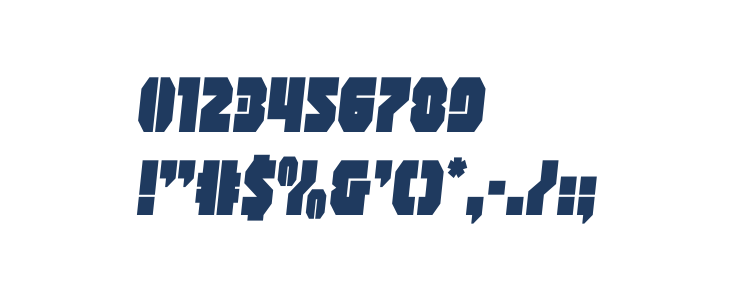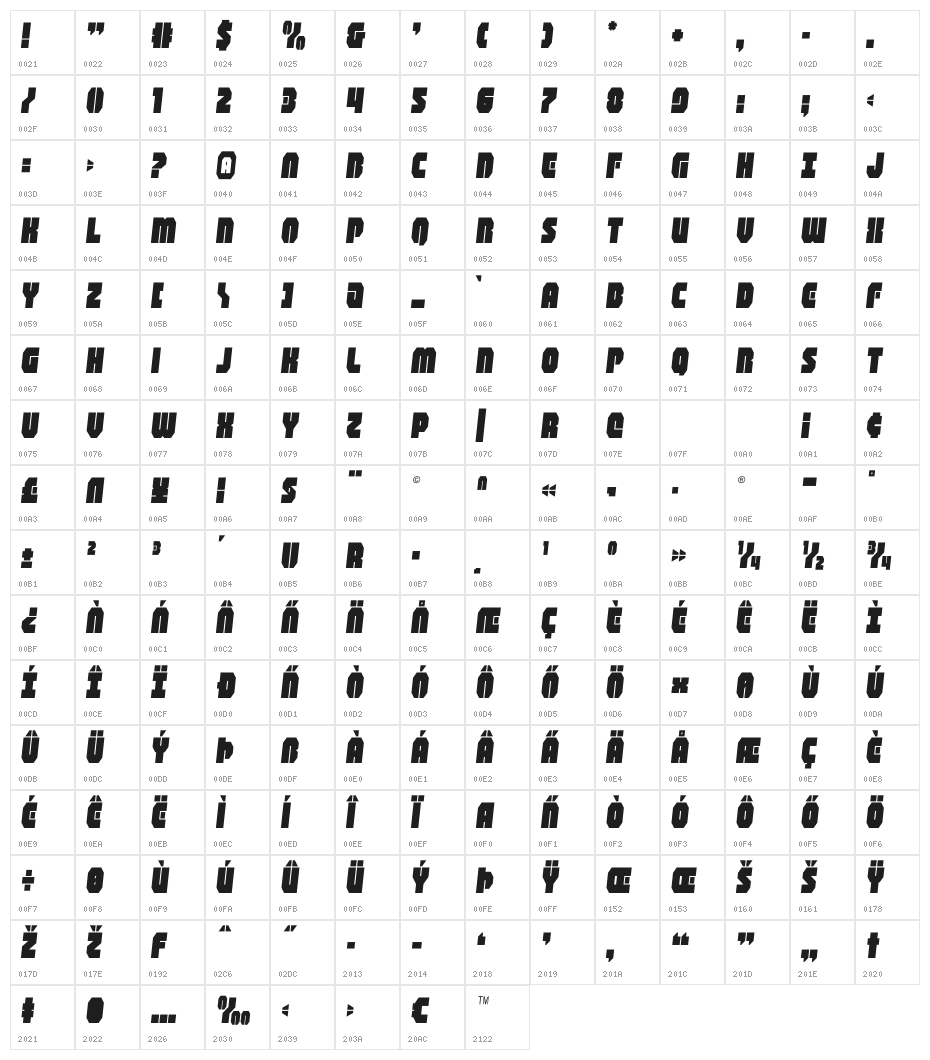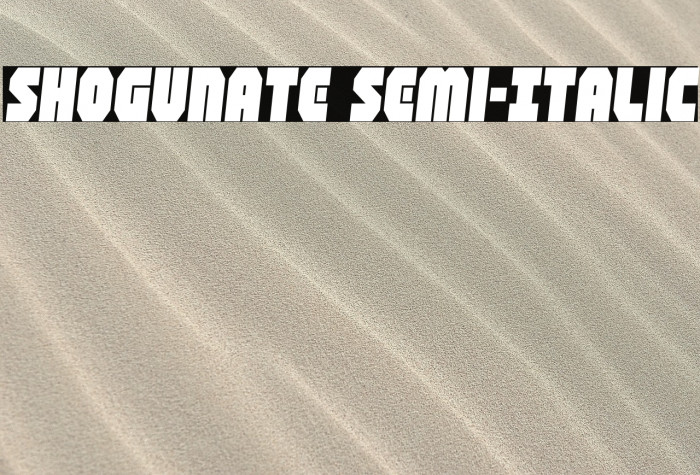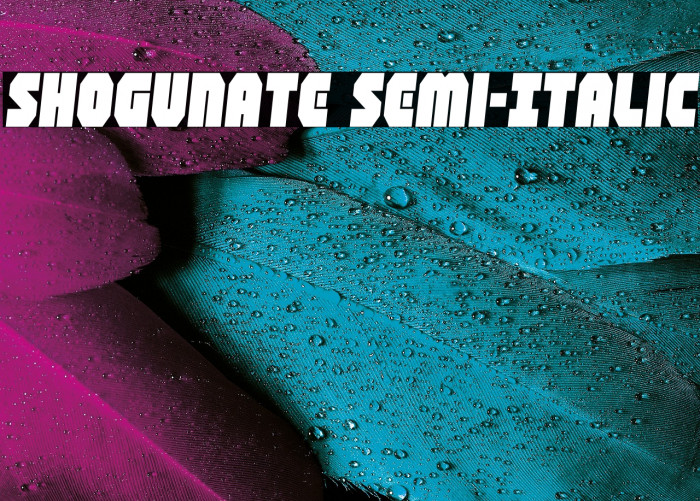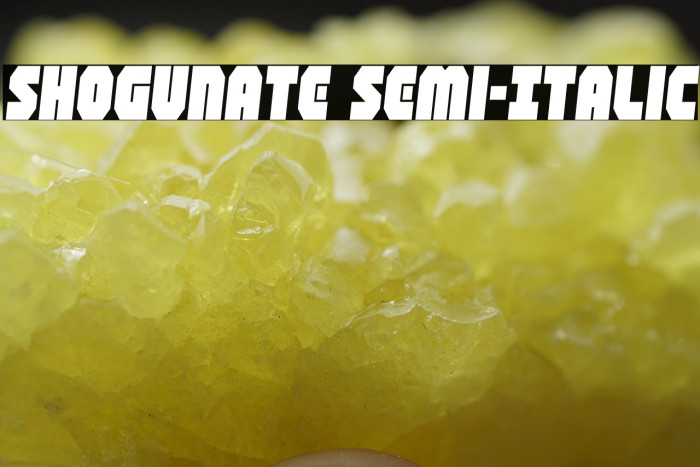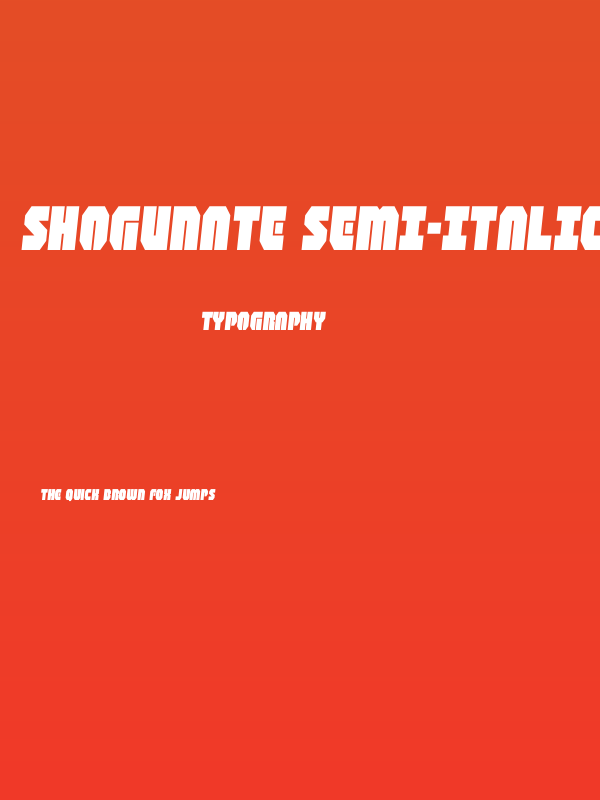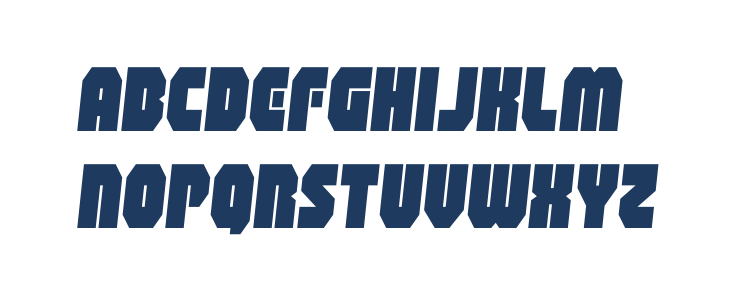
Shogunate Semi-Italic Font
Shogunate Semi-Italic Description
This font features a bold and angular design with a semi-italic slant, giving it a dynamic and modern appearance. The characters are heavily stylized with sharp edges and a geometric structure, creating a strong visual impact. The uppercase and lowercase letters maintain a consistent style, with the lowercase slightly smaller but equally bold. Numbers and special characters follow the same design principles, ensuring uniformity across all glyphs. The font's unique style makes it suitable for projects that require a standout, eye-catching typeface.
| Proposed Projects | Ideal for branding, posters, video game graphics, and any project needing a strong, distinctive typeface. |